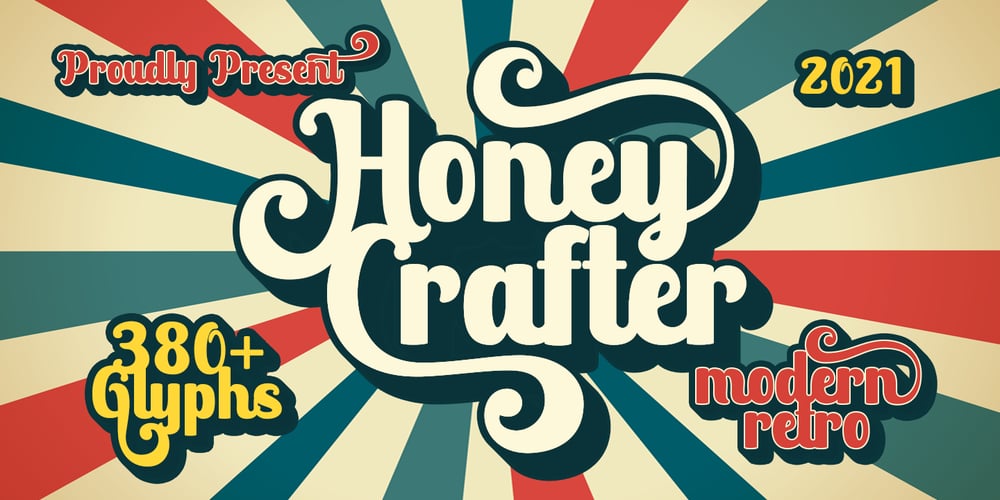
Honey Crafter Font Family was designed by Muhammad Sirojuddin and published by Lettersiro. Honey Crafter contains 2 styles and family package options. Honey Crafter is modern retro font. Made carefully with digital sketch and vectorizing one by one to get best shapes. Honey crafter comes with a lot of alternate that let you make great design composition.What is inside : Multilingual Support Stylistic Alternate, Stylistic set (01,02,03,04), Swash